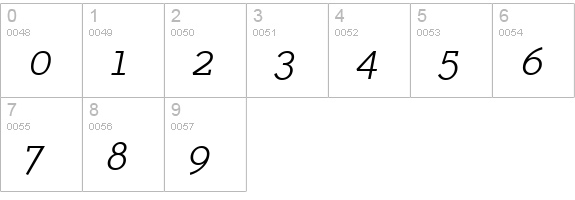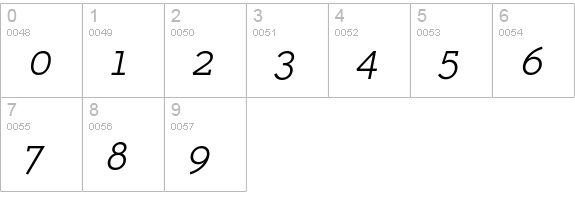
BacktalkSerif BTN SC Oblique Font Details
BacktalkSerif BTN SC Oblique is a distinctive, italic variant in the BacktalkSerif typeface family \xE2\x80\x94 well suited to design and typography projects.
BacktalkSerif BTN SC Oblique is a stunning and sophisticated font that effortlessly combines elegance with a touch of rebellion. With its slanted and stylish design, this font is perfect for adding a unique flair to any project. Featuring slender and elongated letterforms, BacktalkSerif BTN SC Oblique exudes a sense of modernity and creativity. Its strong and confident strokes add a sense of boldness and assertiveness, making it ideal for attention-grabbing headlines or eye-catching logos. This font is not only visually captivating but also incredibly versatile. Whether you're designing a poster, creating a website, or crafting a magazine layout, BacktalkSerif BTN SC Oblique will elevate your project to new heights. Its sleek and refined appearance brings a touch of sophistication, making your content stand out from the crowd. One of the best features of BacktalkSerif BTN SC Oblique is that it is available for free download at FontsMarket.com. This means that you can easily access and utilize this remarkable font without any cost. So, if you're looking for a font that combines elegance, rebellion, and versatility, look no further than BacktalkSerif BTN SC Oblique. Download it for free at FontsMarket.com and let your creativity soar.